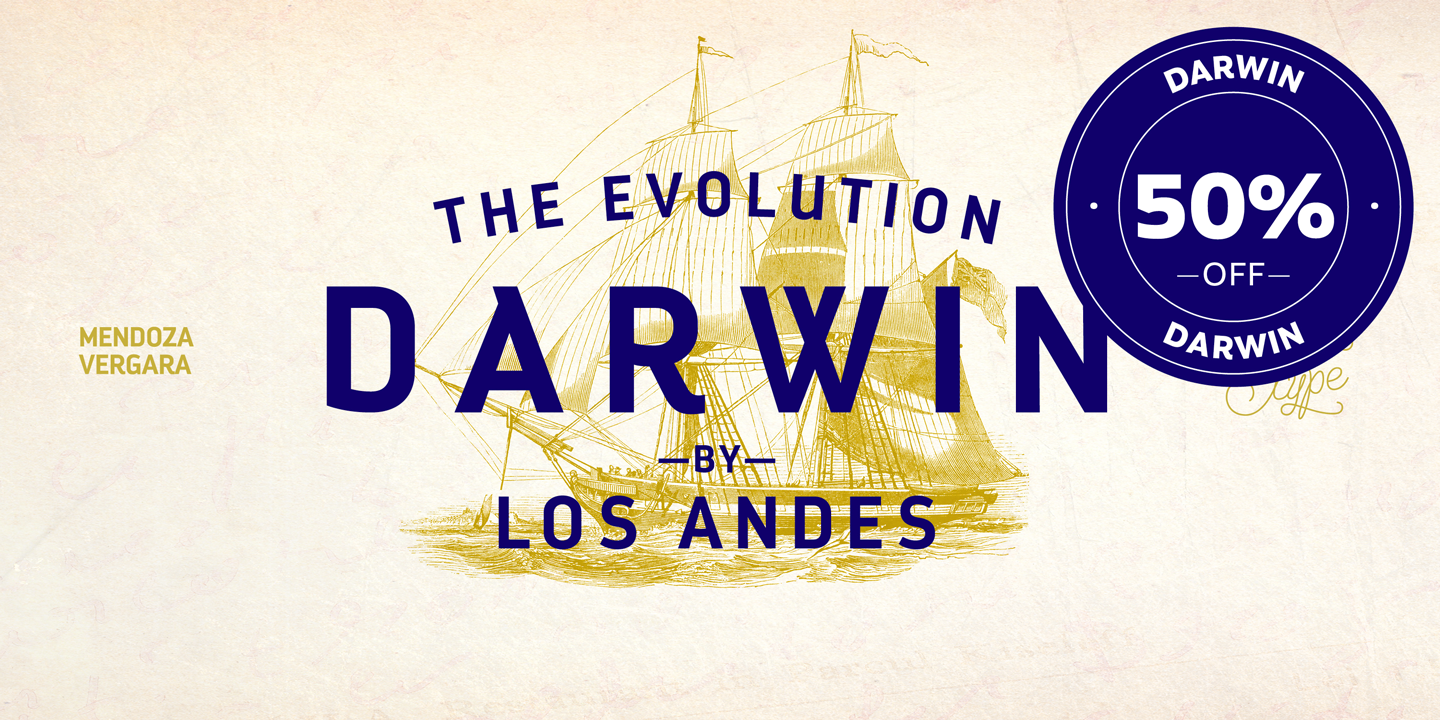
Darwin font family is a eclectic mix of grotesque, geometric and humanistic styles, includes 20 fonts, 10 normal and 10 alt sub family, the alt variant gives spice to the compositions. The font family is good for headlines, little text, posters and logos.